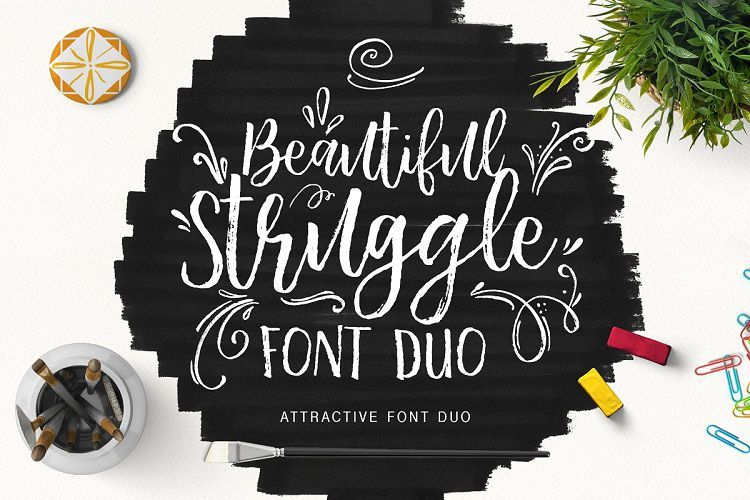
Beautiful Struggle Font
Beautiful Struggle Font Duo is a hand brushed typeface, designed to work together in harmony to create awesome handlettered typographic designs. Perfect for Branding, Logos, Greeting Cards,Wedding Stationery, Posters, and Quotes.
Another awesome feature is the bonus ornaments vector. This includes a tone of hand-drawn elements, including end-swashes for first and last letters, and flourishes. Pick a Ornament Vector (Adobe Illustrator files) and make a little position-tweaking should allow you to add some really unique styles to your Script text with this ornament pack.